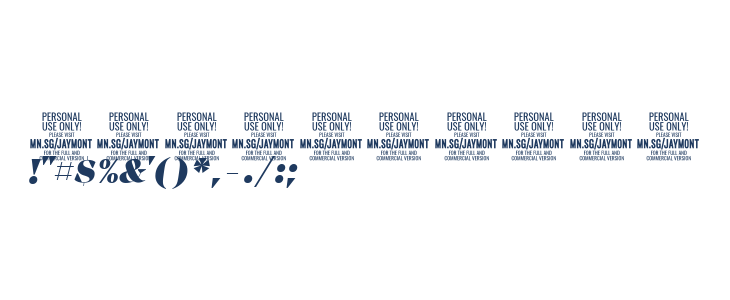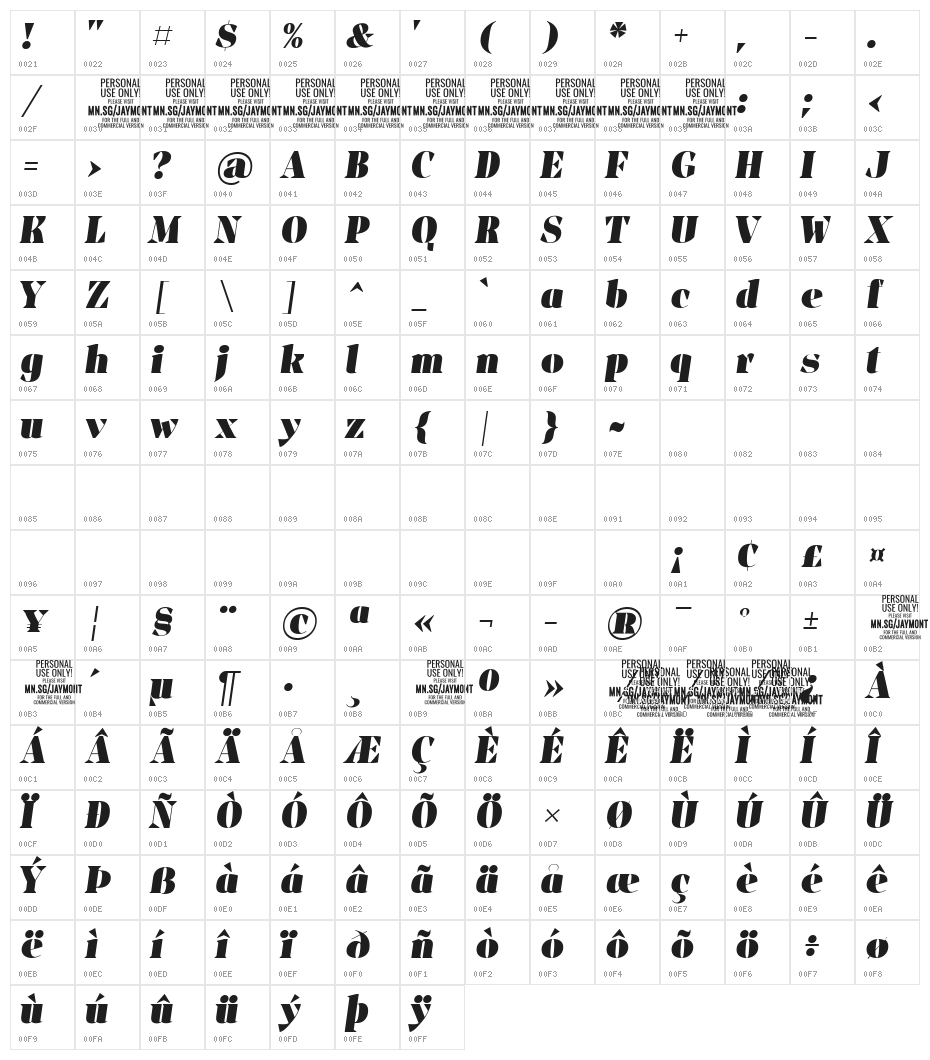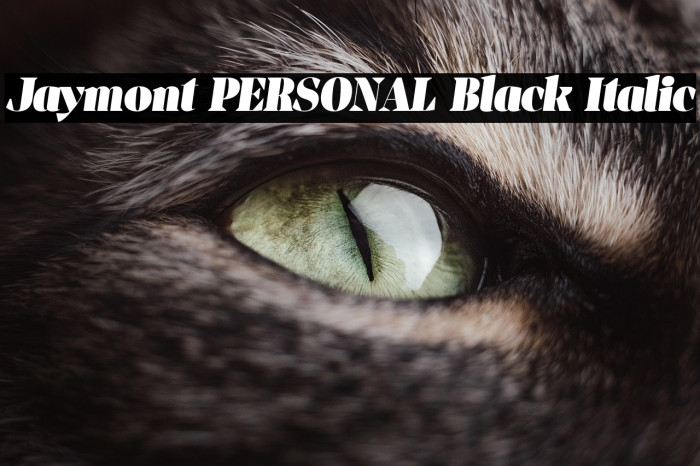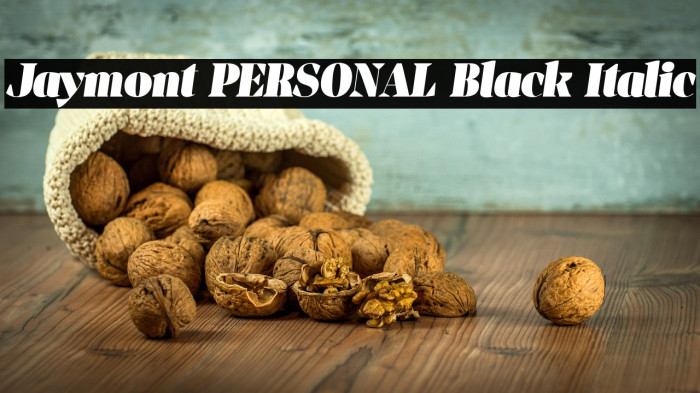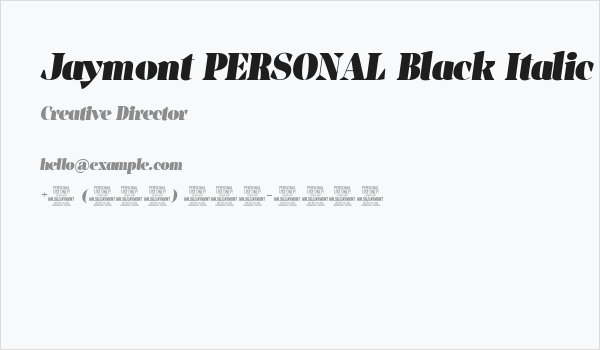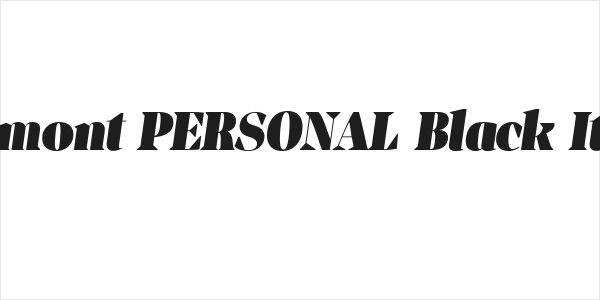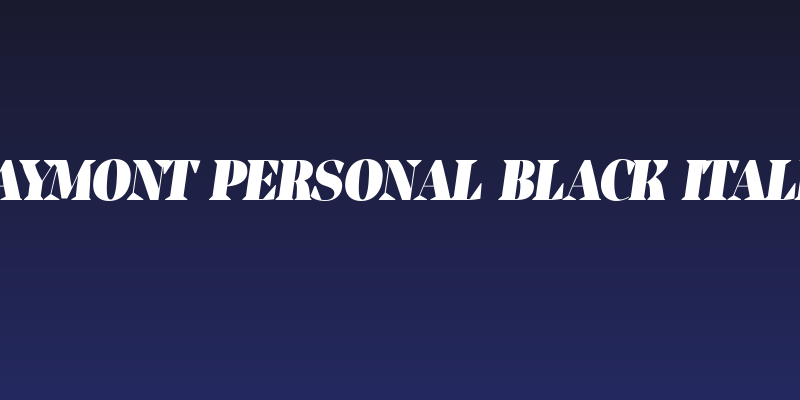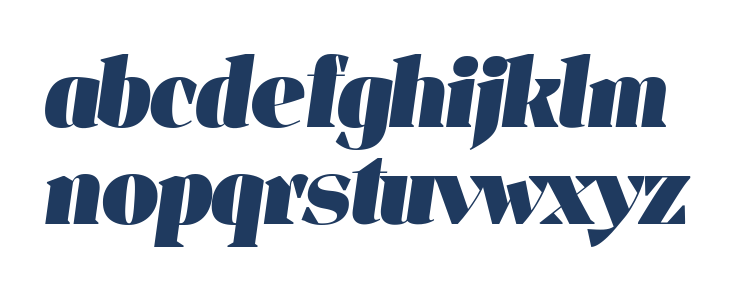
Jaymont PERSONAL Black Italic Font
Jaymont PERSONAL Black Italic Description
This font features a bold and dynamic style with a strong italic slant, giving it a sense of movement and energy. The characters are thick and robust, with sharp angles and a high contrast between thick and thin strokes. The uppercase letters are particularly striking, with a commanding presence that makes them ideal for headlines or titles. The lowercase letters maintain the same boldness, ensuring consistency across text. The numbers and special characters are equally bold, making them stand out in any design. Overall, this font exudes a modern and assertive aesthetic.